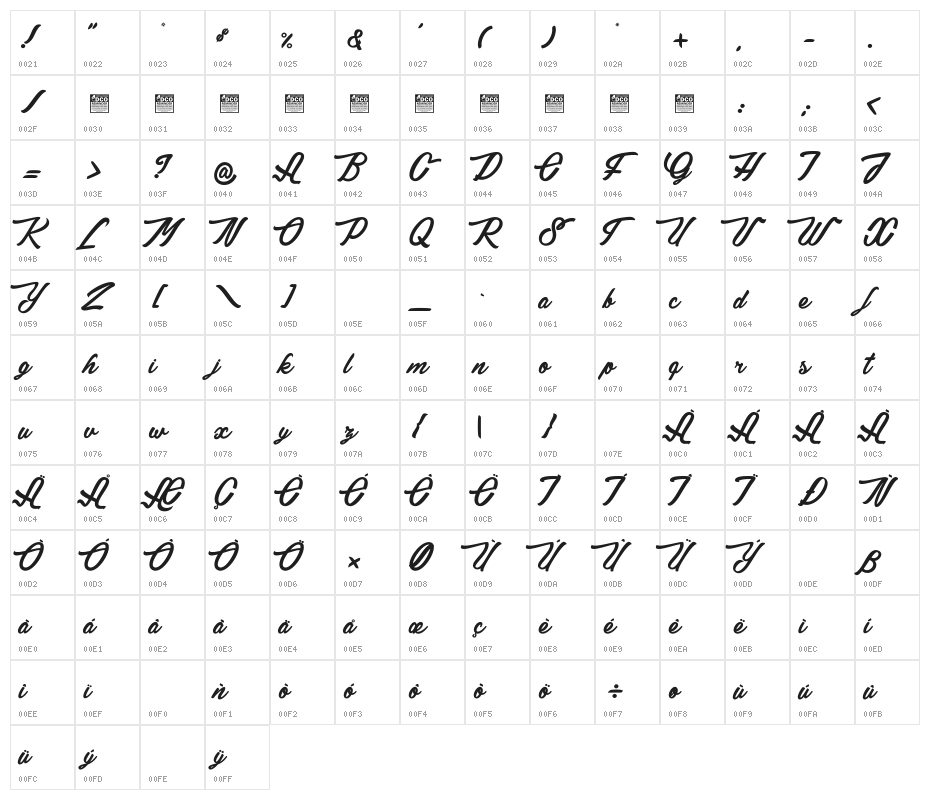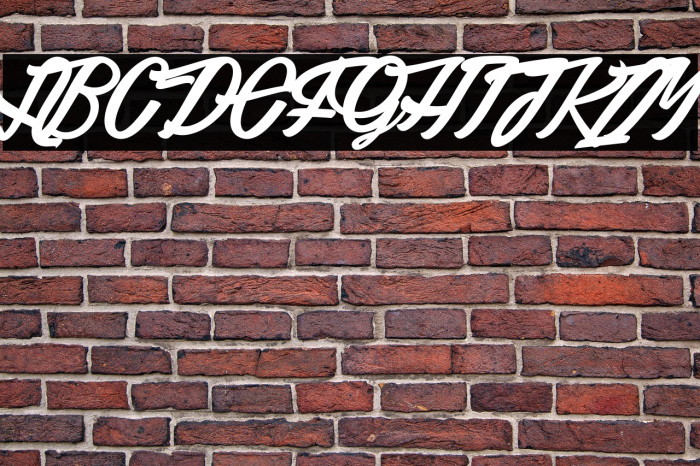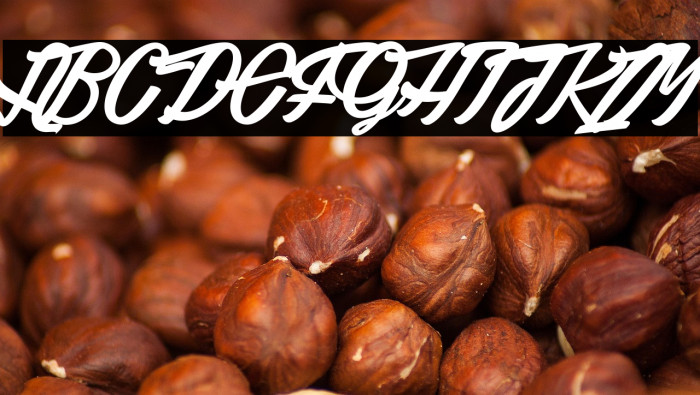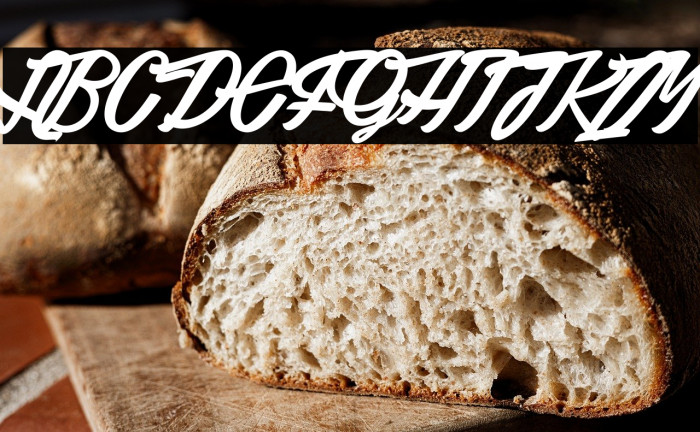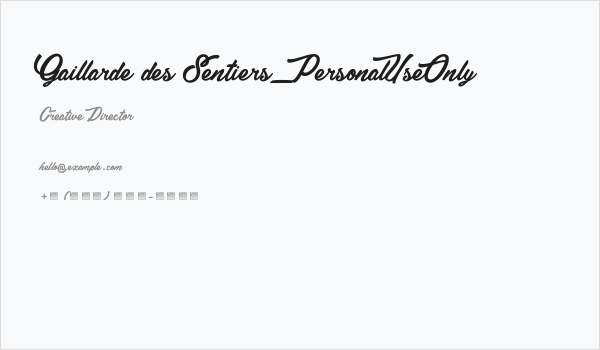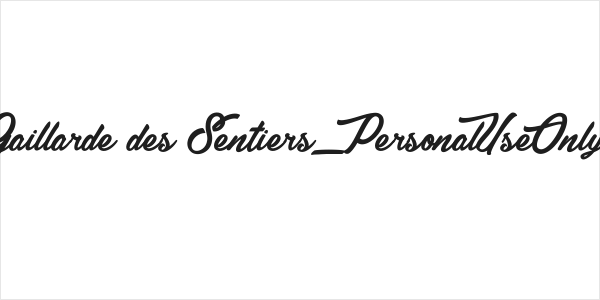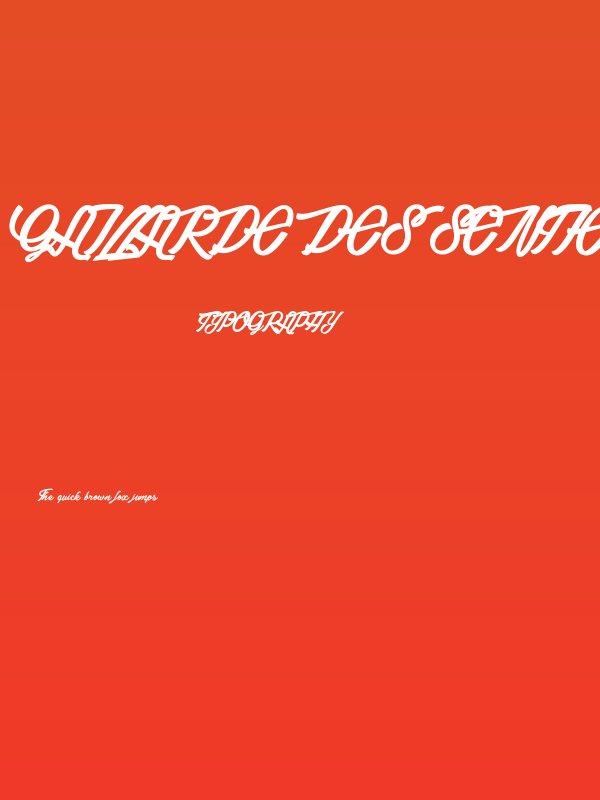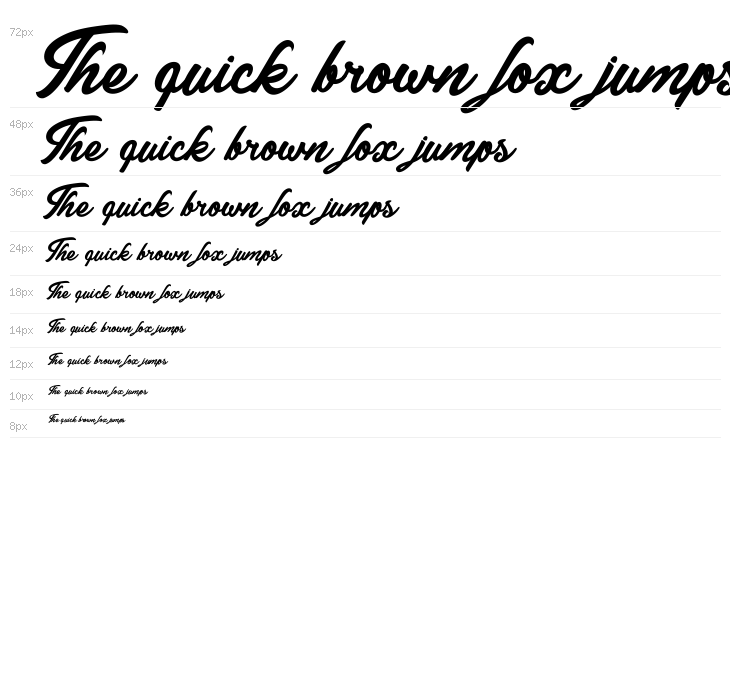
Gaillarde des Sentiers_PersonalUseOnly Font
Gaillarde des Sentiers_PersonalUseOnly Description
This font exhibits a bold, cursive style with a flowing and connected script that gives it an elegant and sophisticated appearance. The uppercase letters are particularly ornate, with sweeping curves and loops that add a sense of movement and grace. The lowercase letters maintain a consistent style, offering a harmonious blend with the uppercase. The numbers and special characters are designed to match the overall aesthetic, ensuring a cohesive look across all text. The font's boldness makes it stand out, while the cursive nature adds a touch of classic charm. It's suitable for projects that require a personal and artistic touch, such as invitations, greeting cards, or branding materials.